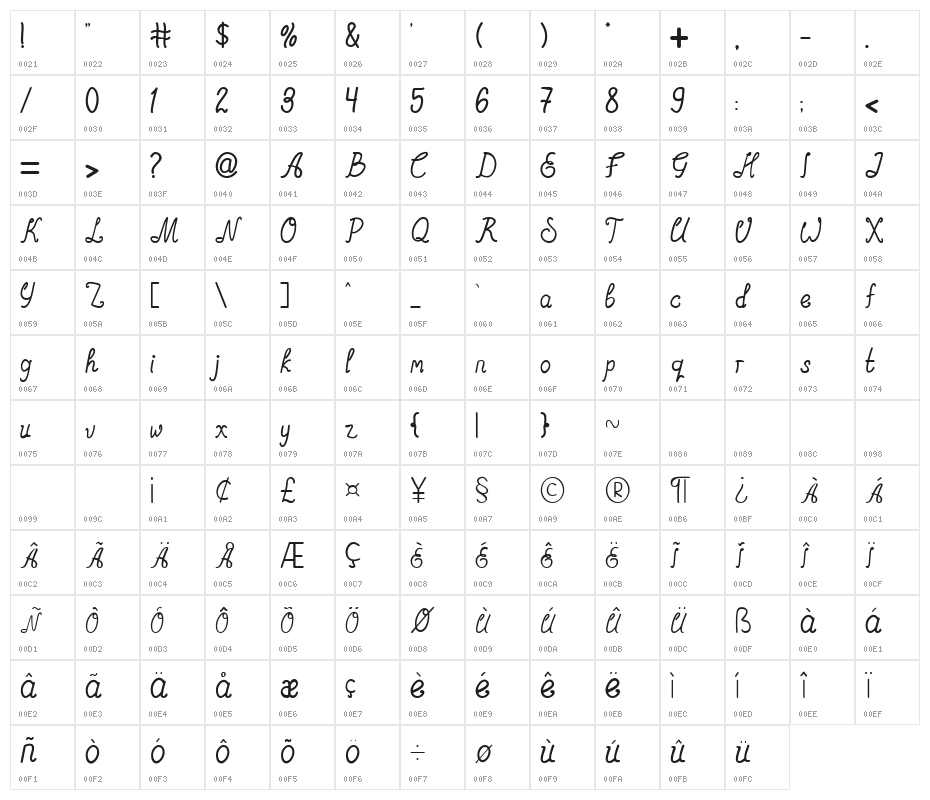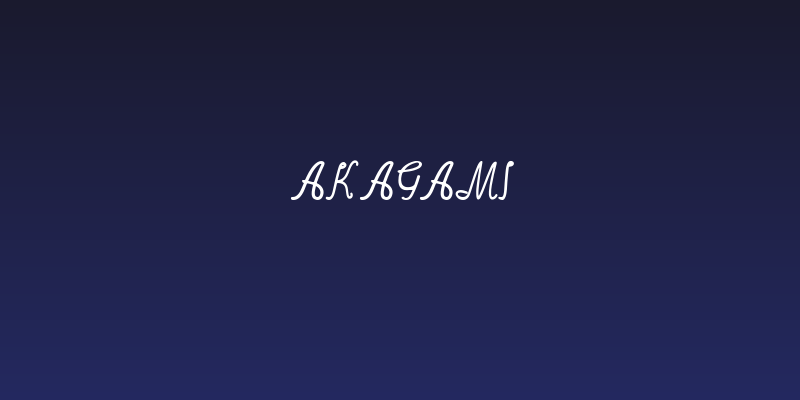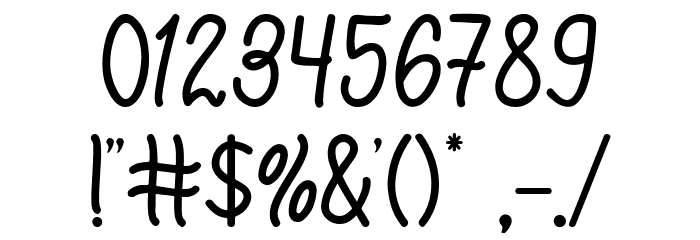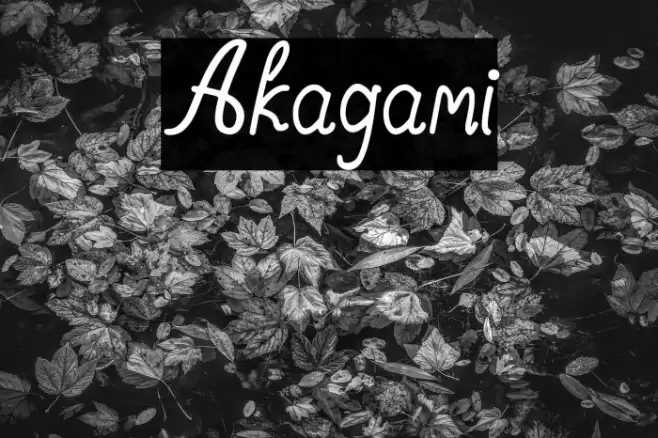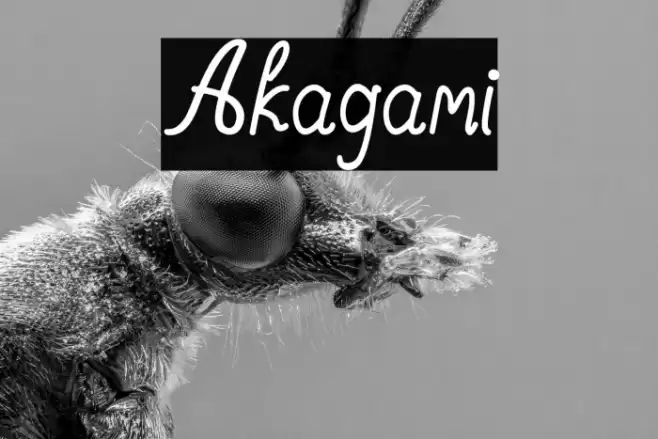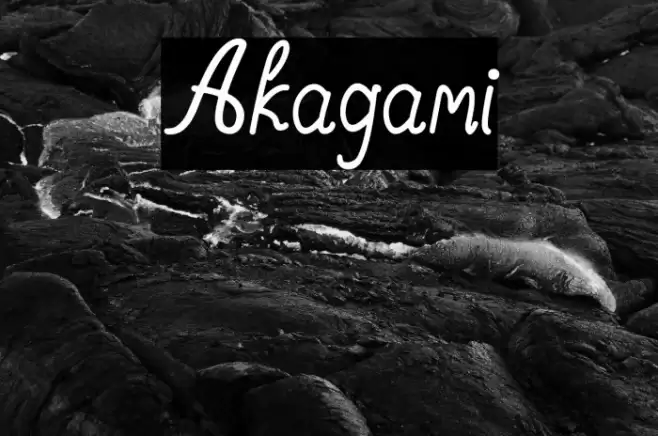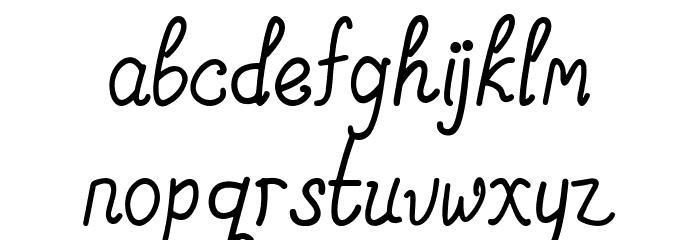
Akagami Font
Akagami Description
This font features a playful and whimsical script style with a handwritten appearance. The characters are fluid and connected, giving it a casual yet elegant look. The uppercase letters are slightly more formal, while the lowercase letters maintain a consistent, flowing style. The numbers and special characters are designed to match the overall aesthetic, with smooth curves and a friendly demeanor. This font is perfect for projects that require a personal touch, such as invitations, greeting cards, or branding materials.
| Overall Style | Whimsical, Casual, Elegant |
| Use Case | Headlines, Invitations, Greeting Cards |
| Proposed Projects | Ideal for invitations, greeting cards, personal branding, and creative projects requiring a personal touch. |